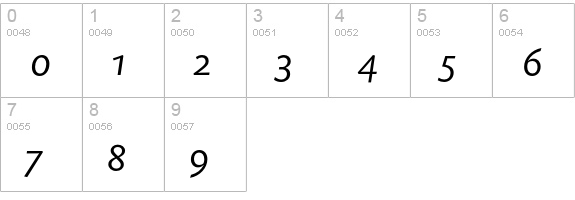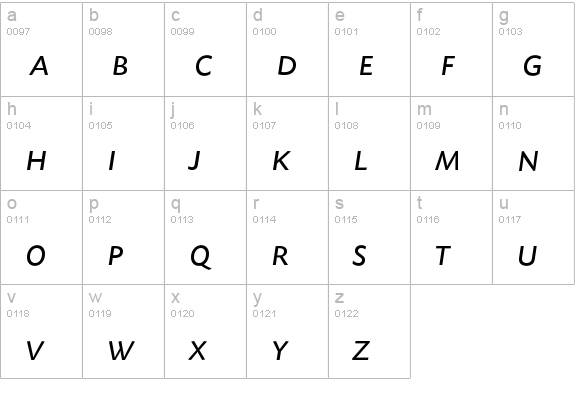
Today Sans Serif Caps Italic Font Details
Today Sans Serif Caps Italic is a distinctive, italic variant in the Today typeface family \xE2\x80\x94 well suited to design and typography projects.
Today Sans Serif Caps Italic is a modern and stylish font that adds a touch of sophistication to any design. With its clean lines and elegant curves, this font is perfect for creating eye-catching headlines, logos, and branding materials. The italicized letters give a sense of movement and flair, making your text stand out from the crowd. The versatility of Today Sans Serif Caps Italic is one of its greatest strengths. It can be used in a variety of design projects, from magazine layouts to website headers. Whether you're designing for print or digital, this font will add a professional and polished look to your work. One of the best things about Today Sans Serif Caps Italic is that it is free to download. You can easily access and use this font for your personal and commercial projects without any cost. Simply visit FontsMarket.com, where you can find a wide range of high-quality fonts, including Today Sans Serif Caps Italic, available for free download. Don't miss out on the opportunity to enhance your designs with the elegance and style of Today Sans Serif Caps Italic. Download it today from FontsMarket.com and take your design projects to the next level.